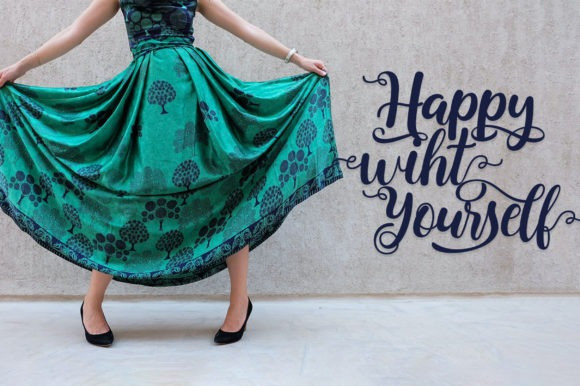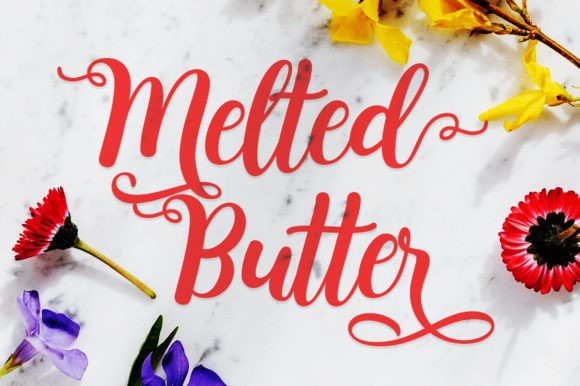
Melted Butter Font
Melted Butter Script Font is a magical handwritten font carefully created with a touch of elegance. Whether you’re looking for fonts for Instagram or calligraphy scripts for DIY projects, this font will turn any creative idea into a true piece of art!